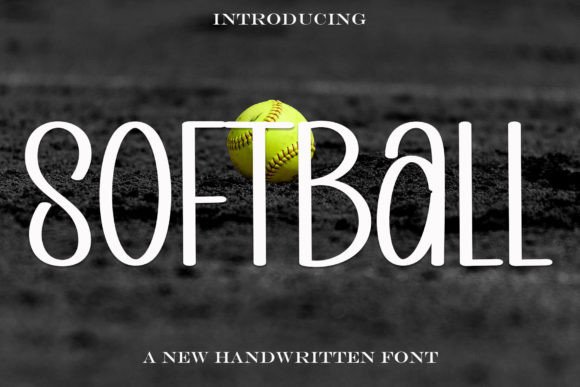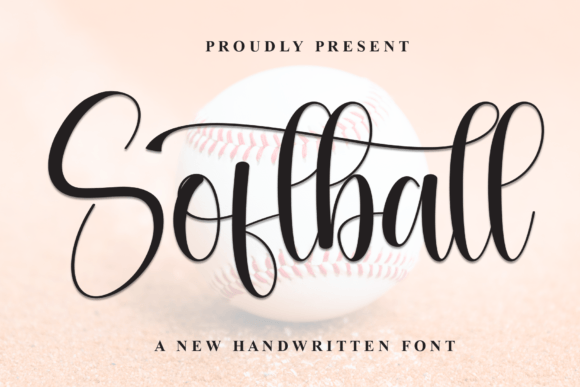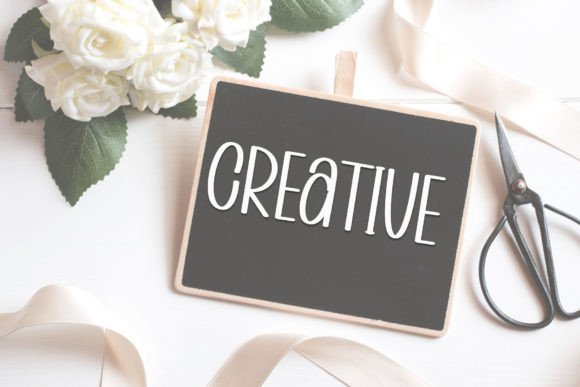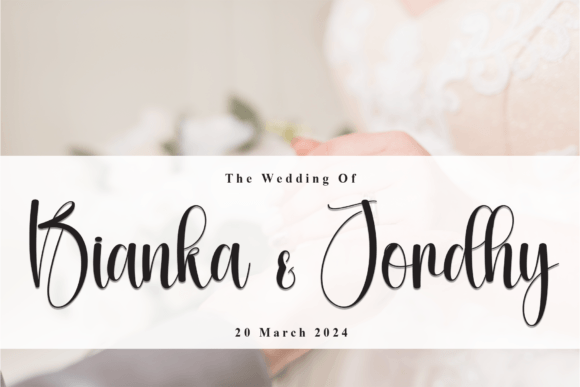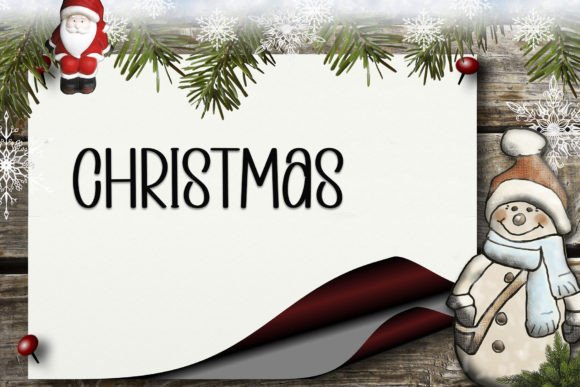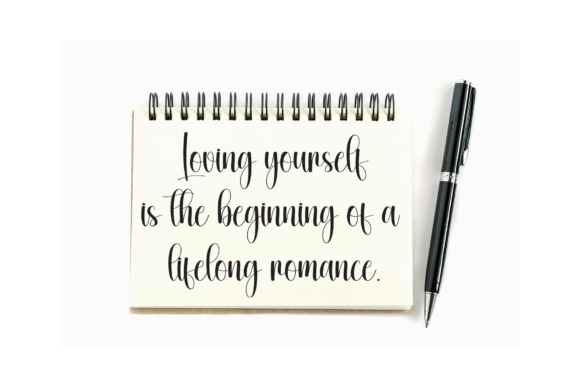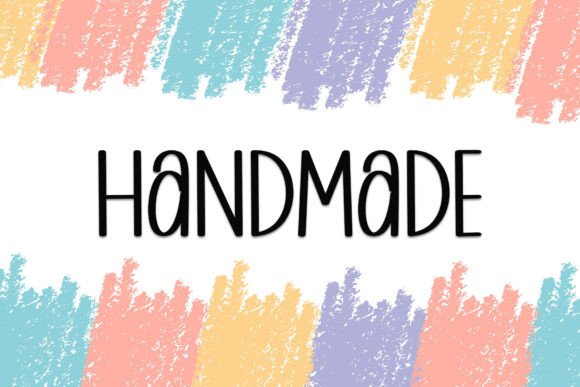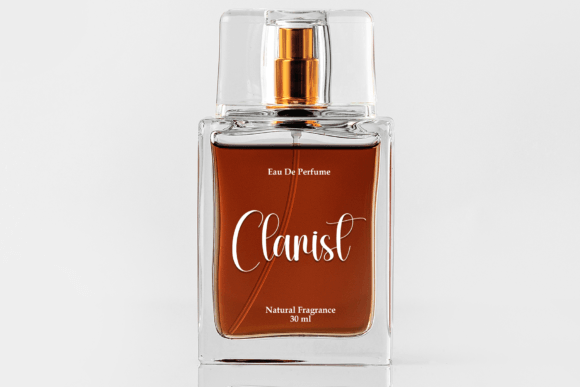
Softball Font
About the Softball Font
Unleash your creativity with Softball Font, a versatile font perfect for a wide range of applications. Softball is a charming handwritten font exuding a casual and relaxed vibe. Its playful strokes and irregularities capture the essence of spontaneity and creativity. Perfect for adding a personal touch to invitations, cards, and social media posts, this font brings warmth and friendliness to any project.